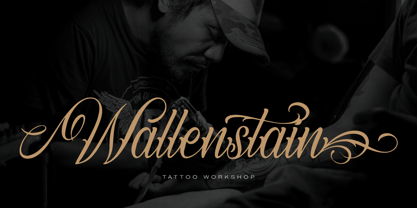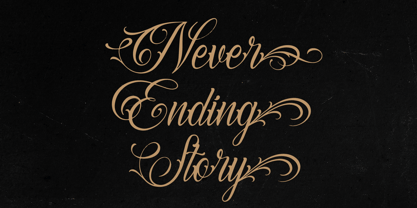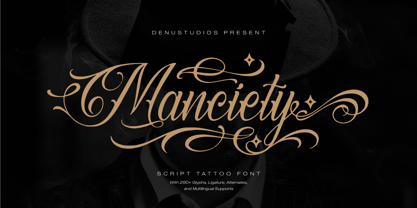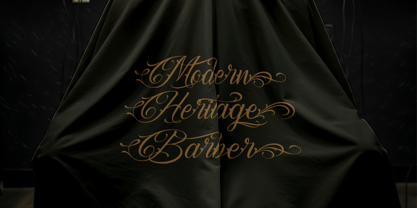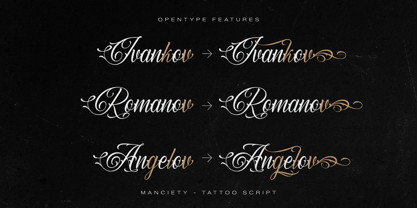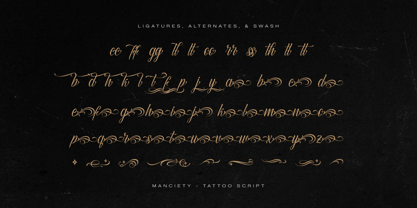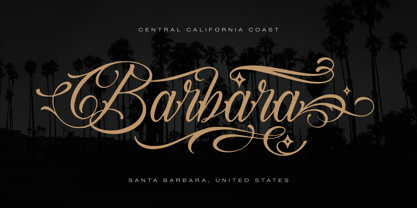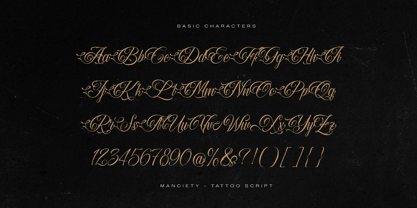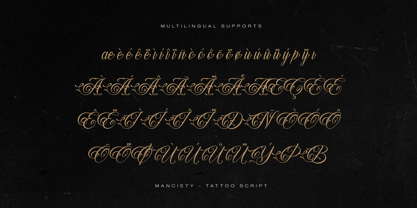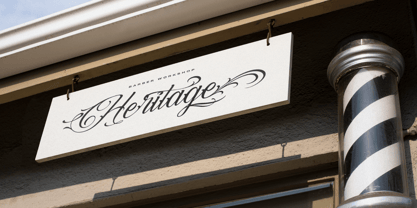
Manciety
von Denustudio
Die Schriftfamilie Manciety wurde von Dede Nugraha entworfen und von Denustudio veröffentlicht. Manciety enthält 1 Stile. Mehr über diese Familie
Manciety | Tattoo Script Font, from Denustudios, suitable for any projects such as: logos, branding projects, homeware designs, product packaging, mugs, quotes, posters, shopping bags, t-shirts, book covers, name card, invitation cards, greeting cards, label, photography, watermark, special events, and all your other lovely projects that need Tattoo a taste.
Designer: Dede Nugraha
Foundry: Denustudio